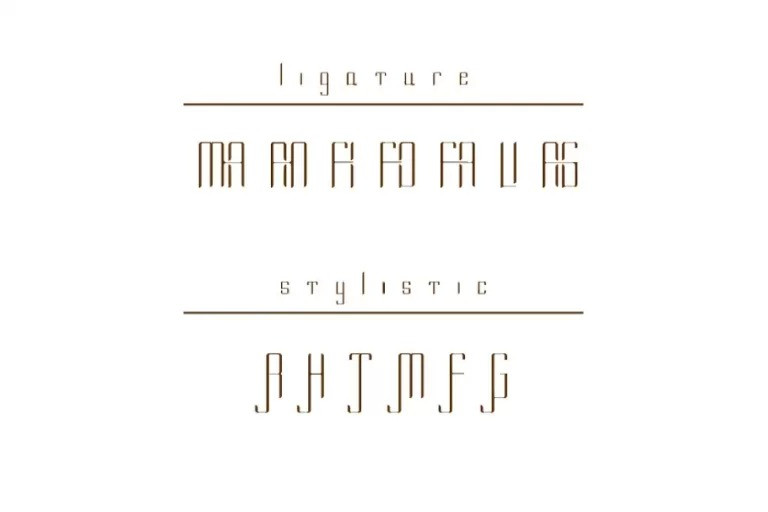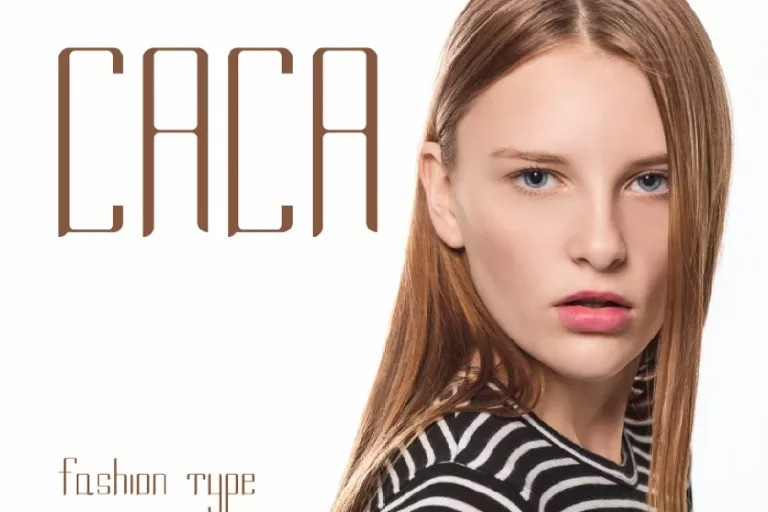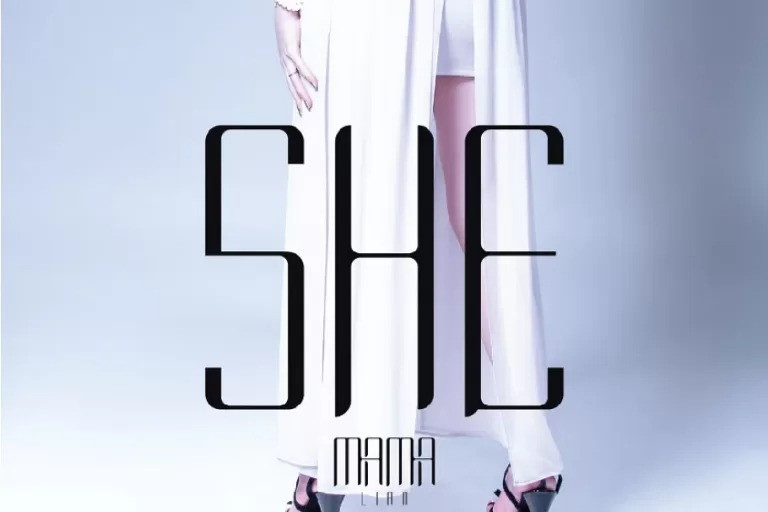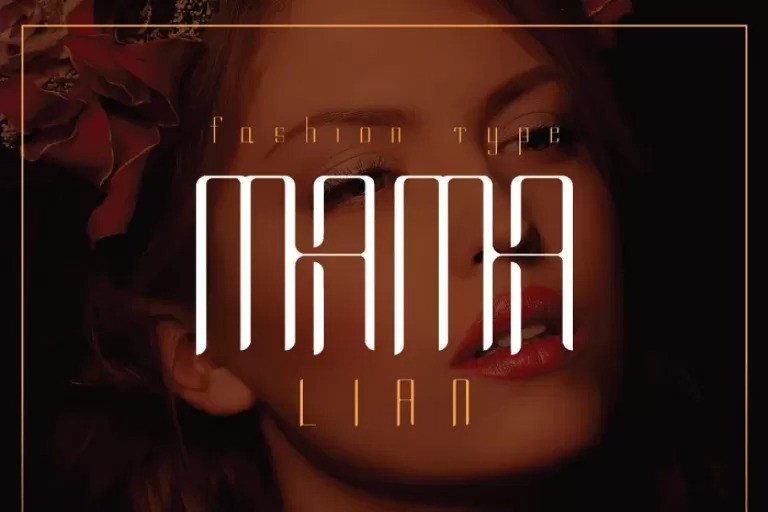
Mama Lian Font
Mama Lian Sans Serif Font is an elegant sans serif typeface created by drizy studio with a modern touch, minimalist geometric style. Each font has small letters, capitals, numbers, ligature, stylistic and punctuation. This typeface is for all type lovers who would like to emphasize a fashion project.